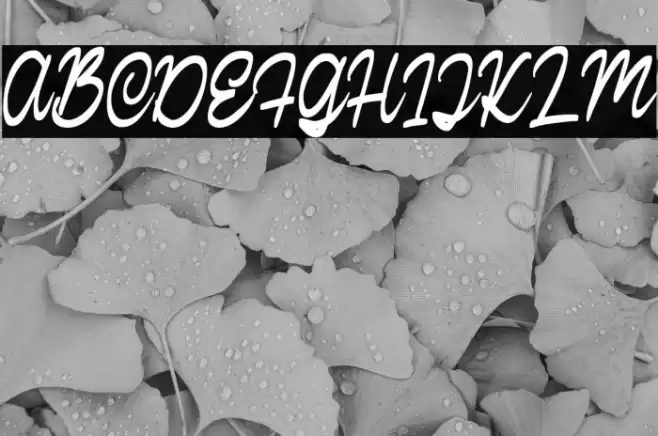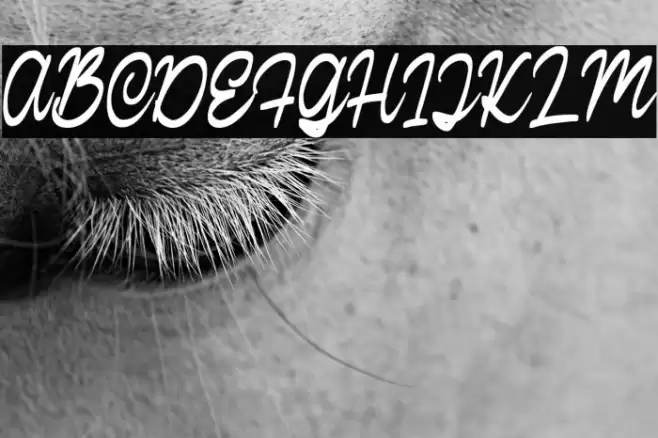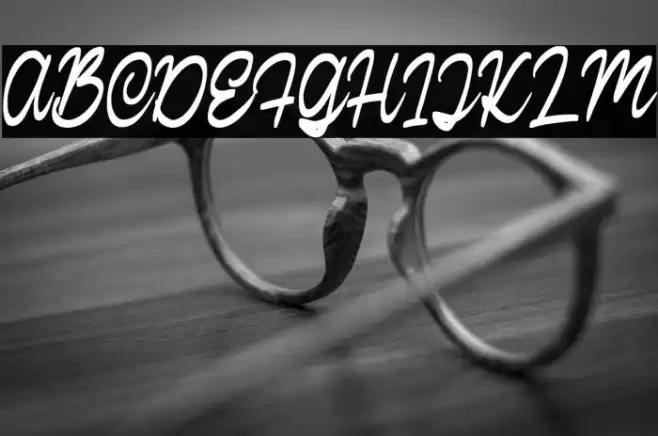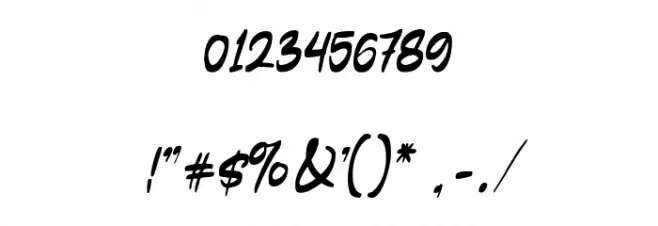
CalisteScriptDEMO-Regular Font
CalisteScriptDEMO-Regular Description
This elegant script font features a fluid, cursive style with smooth, flowing lines and a slight slant, giving it a dynamic and sophisticated appearance. The uppercase letters are bold and prominent, while the lowercase letters maintain a consistent, graceful flow. The numerals and special characters are designed to complement the overall aesthetic, maintaining the same fluidity and elegance. This font exudes a sense of refinement and creativity, making it ideal for projects that require a touch of elegance and personal flair.
A fluid, elegant script font with a dynamic and sophisticated style from Uncategorized fonts.
- Proposed Projects: Ideal for wedding invitations, greeting cards, branding, and elegant logo designs.
- Overall Style: Elegant, Sophisticated
- Use Case: Logos, Invitations, Branding